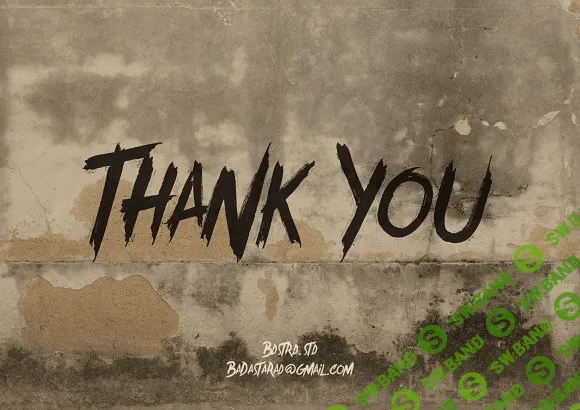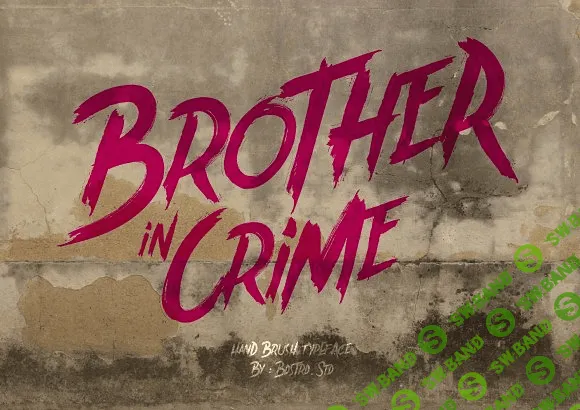
Название: Brother In Crime Font
Brothers In Crime inspired by a handwriting on the wall of a slum. Then packed without prejudice to the texture of paint used to write it. Brothers In Crime is very suitable for the design of concert music, rock, metal, punk and more. Can also be used for purposes other designs.